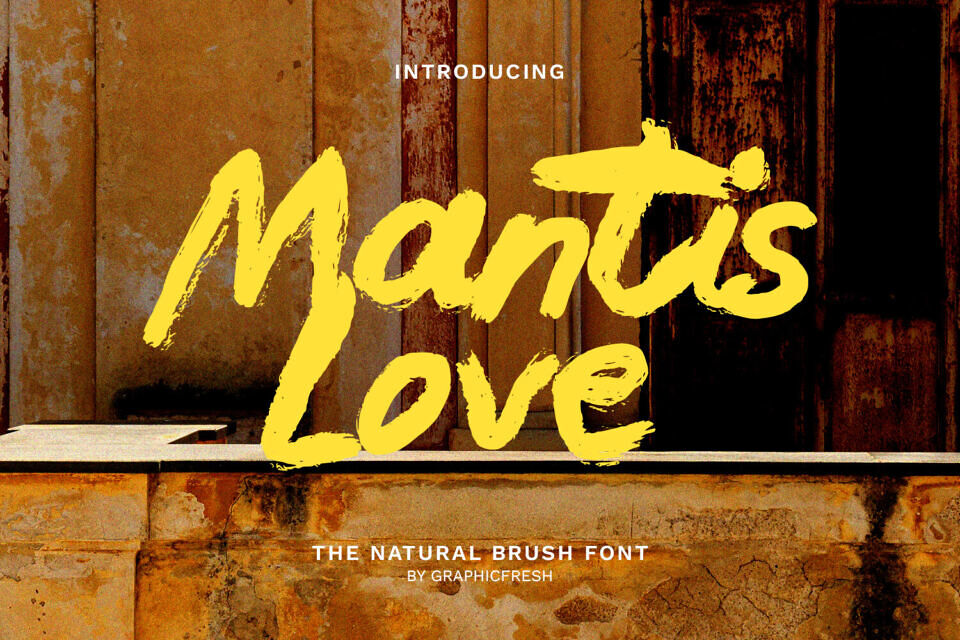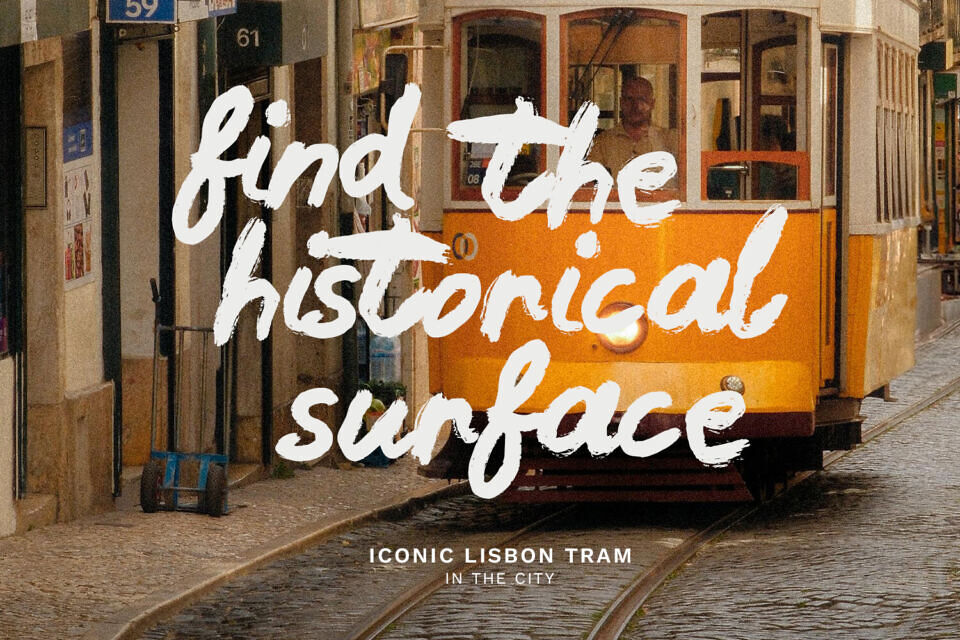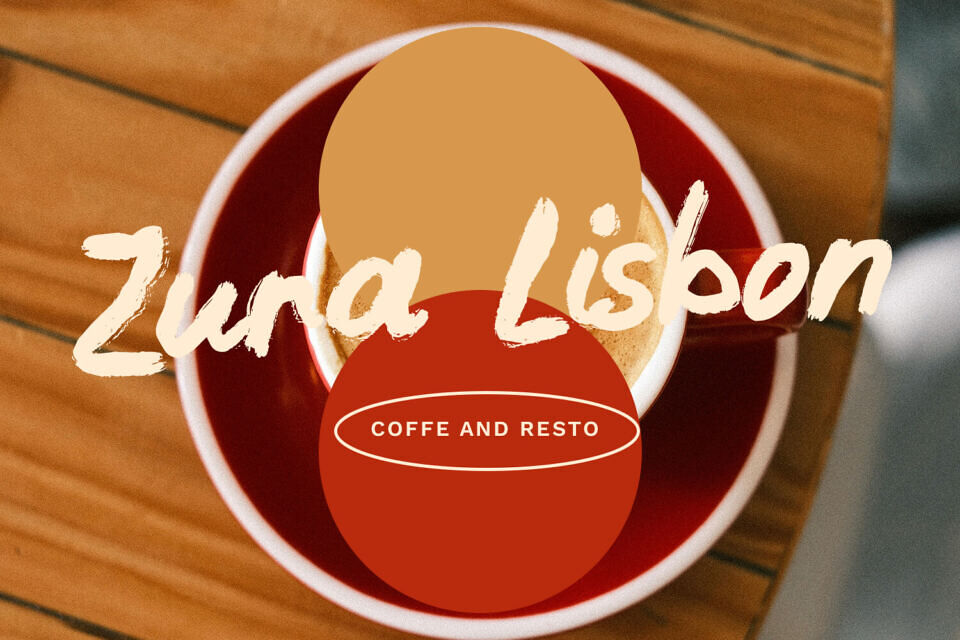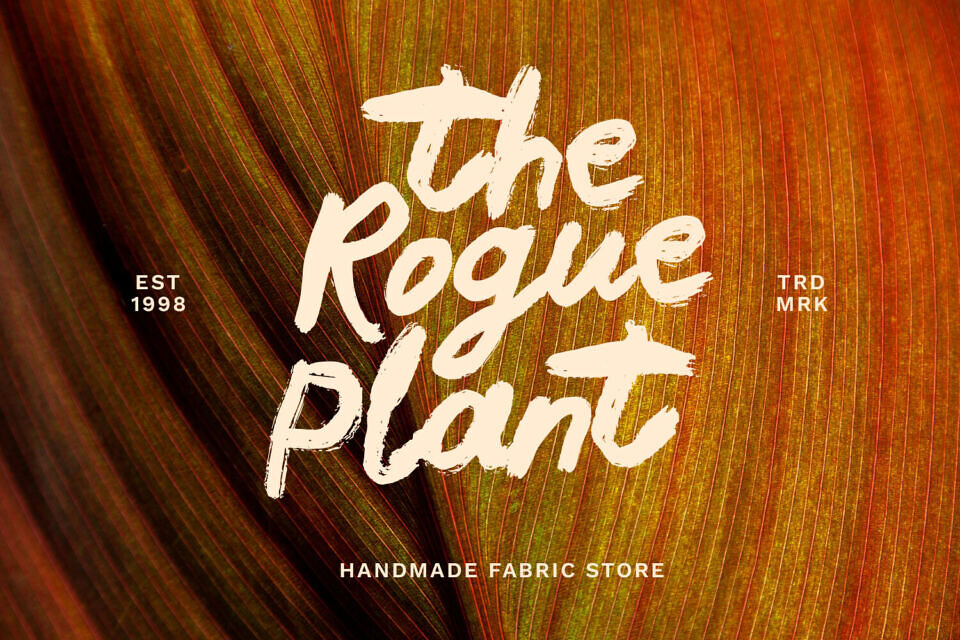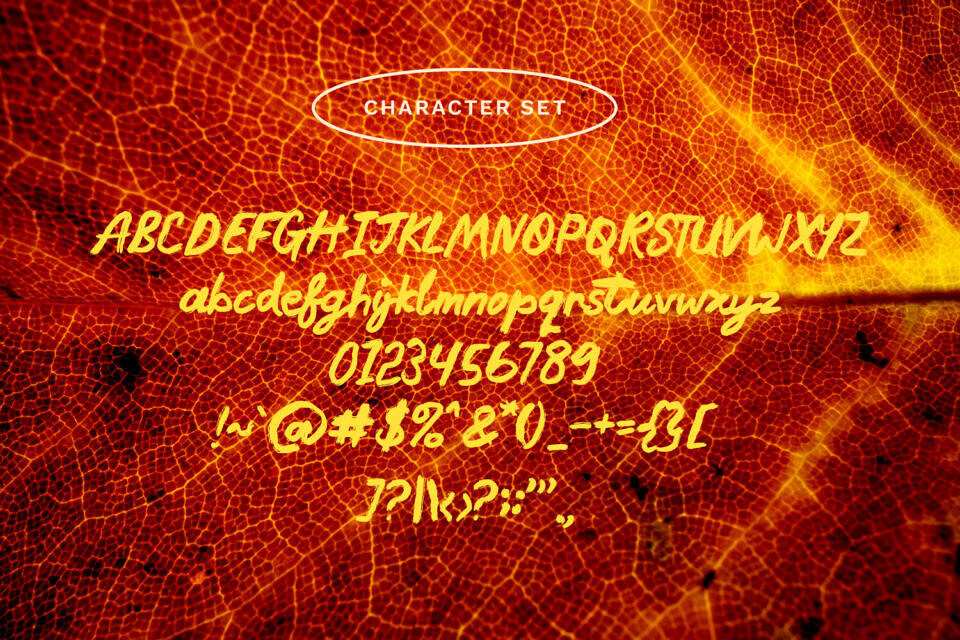
Mantis Love is a natural brush font inspired by organic hand strokes and authentic ink textures. Designed to feel raw yet balanced, this font brings a handmade character that works beautifully for branding, posters, social media, and creative headlines. Its natural flow and textured brush style give your designs a strong, expressive, and artistic presence without losing readability.